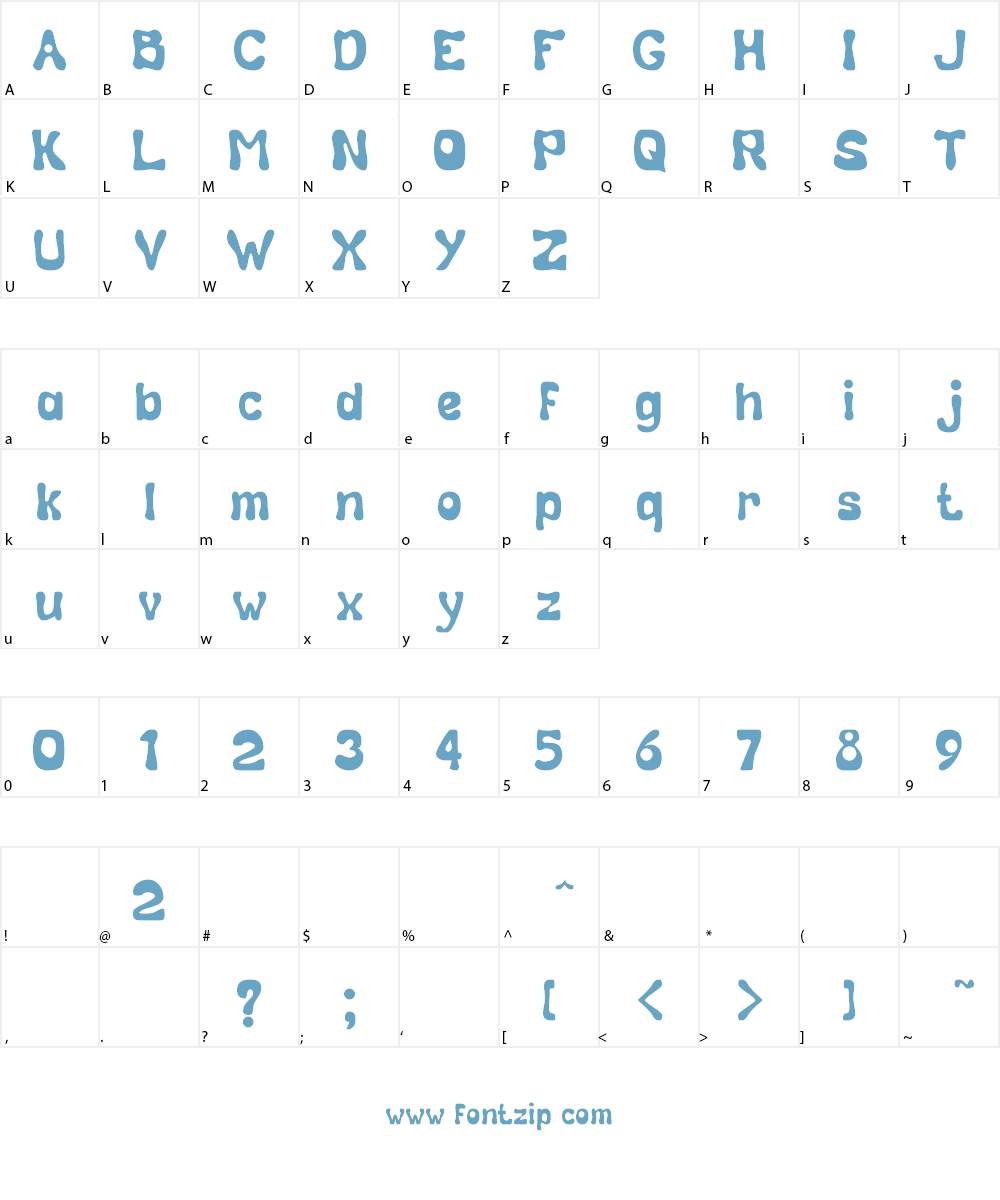
Whoever had the wonderful opportunity to witness the hip movement, or simply to take interest into the Woodstock era, has see such psychedelic fonts. At the time, moving bubble lamps and psychedelic everything was the name of the game. I could not resist bringing you this flavor or flower power creativity.